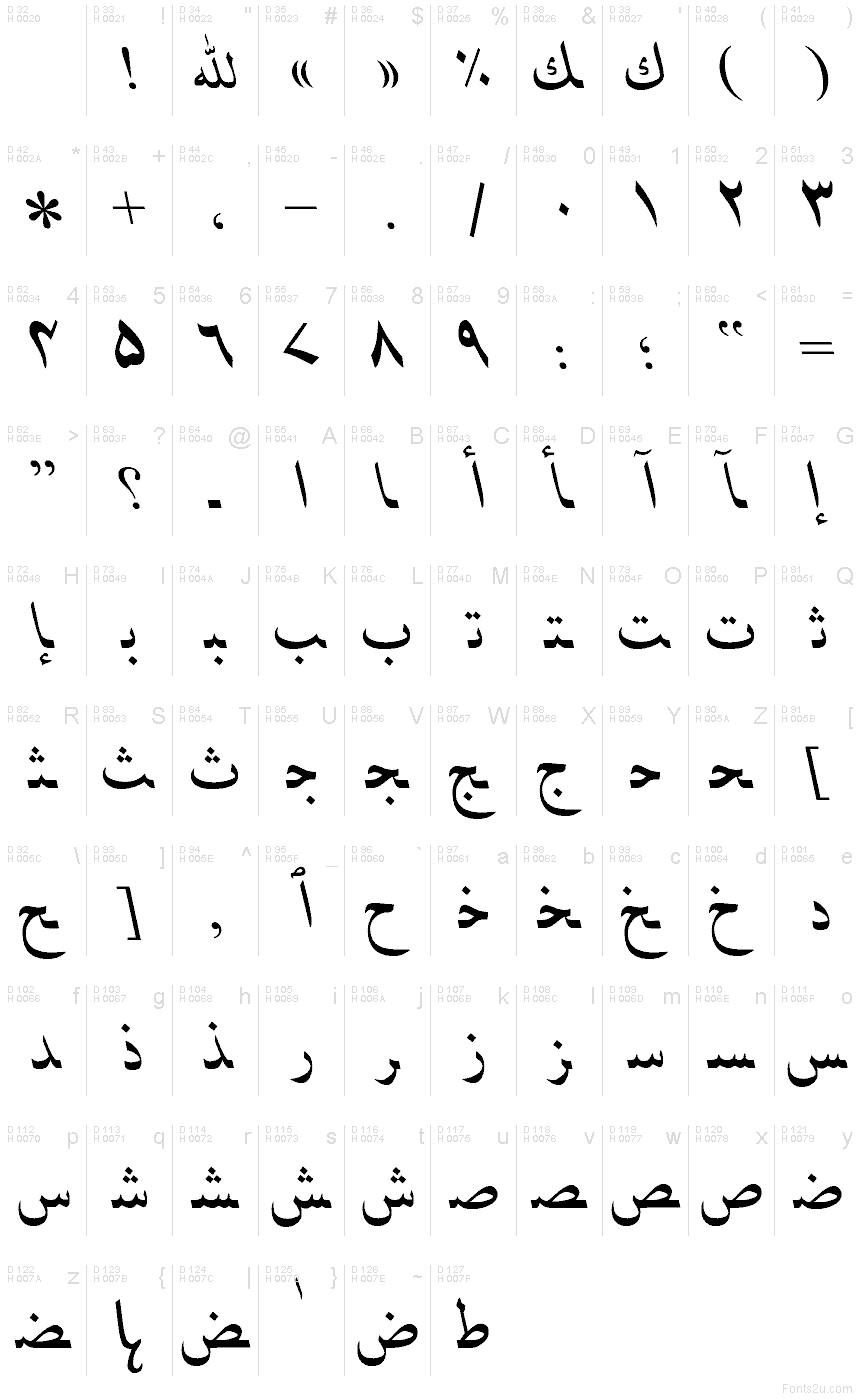
UrduNaskhSSK Italic
UrduNaskhSSK Italic font is a free Arabic typeface from Arabetics designed in flowing characters that march along an invisible line. Elegant and artistic, this font features expressive elongated marks like those present in handwritten Arabic or Urdu texts. Its clean and professional style makes it a match for audiences of any background.
Infused with cultural significance, this piece fits into designs related to translation services, Quranic studies, regional museums, linguistic tools, geopolitical reports dealing with the Middle East region, Islamic nonprofits or institutions etc.